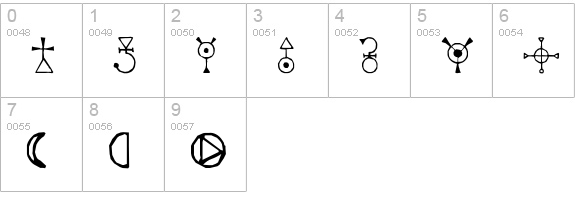
Astrologische Symbole Font Details
Astrologische Symbole font is a beautifully designed typeface that features intricate and mystical symbols inspired by astrology. Each character in this font is carefully crafted to represent different zodiac signs, planets, and celestial elements. Whether you are creating astrological charts, designing mystical artwork, or simply adding a touch of magic to your projects, Astrologische Symbole font is the perfect choice. What's even more amazing is that Astrologische Symbole font is completely free to download at FontsMarket.com. Yes, you read that right - this enchanting font is available for free, allowing you to unleash your creativity without any cost. So why wait? Download Astrologische Symbole font today and let your imagination soar to new celestial heights.